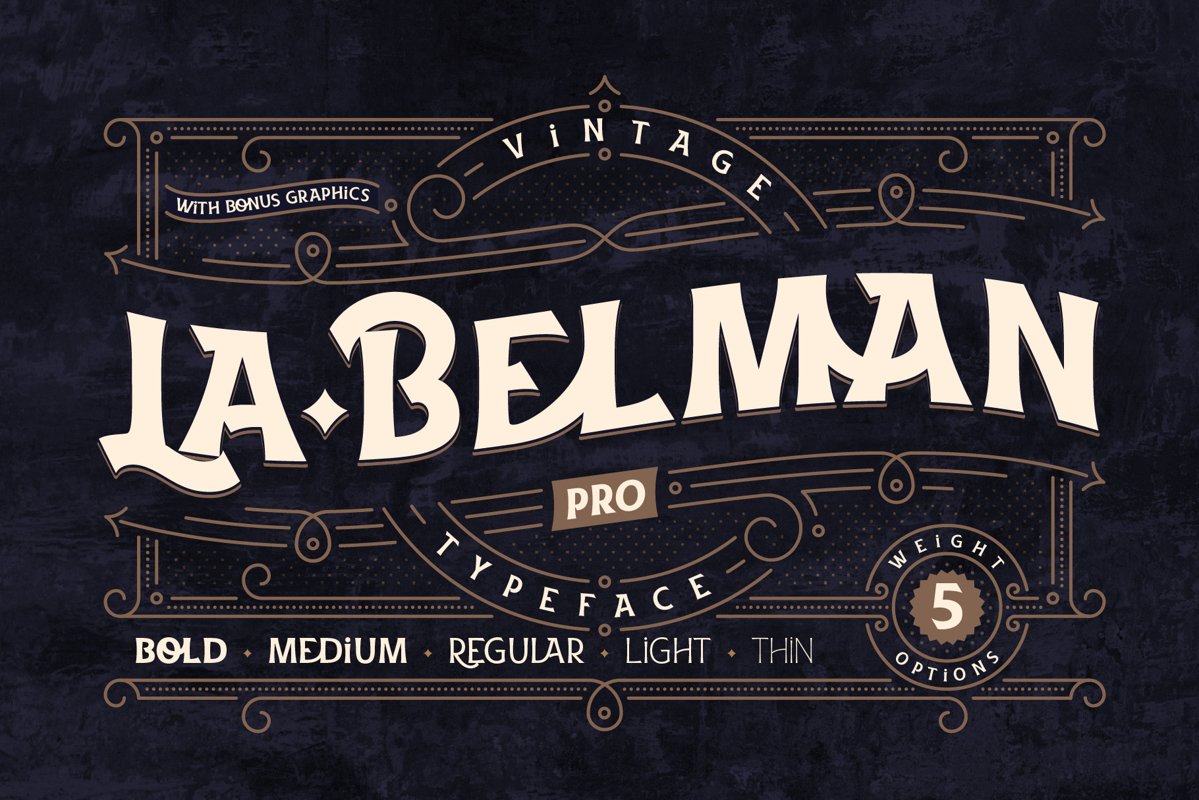
Presenting a font family La Belman Pro.
This capital vintage style typeface is perfect for label design and
different headers. It has 5 weights wich makes it more usable in
different sizes and usecases. Lots of ligatures can help you to create a
unique lettering compositions. West european characters set is